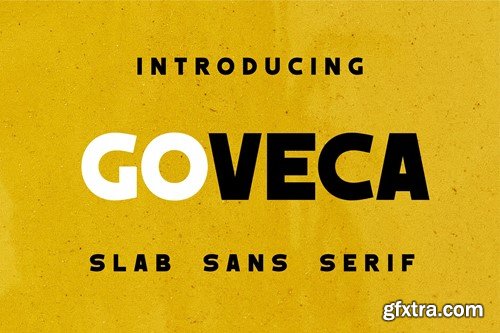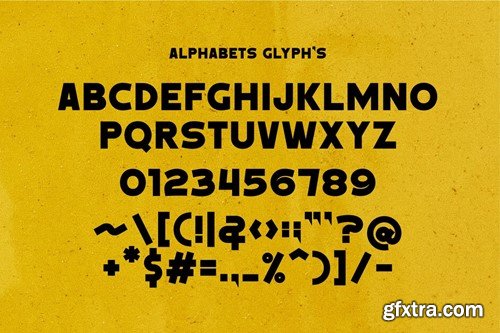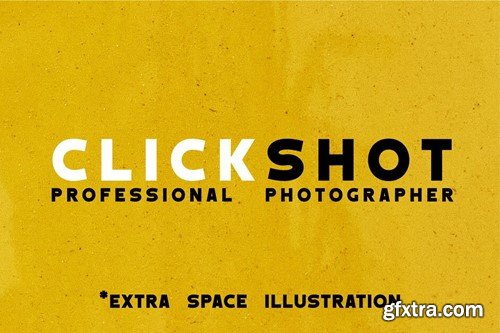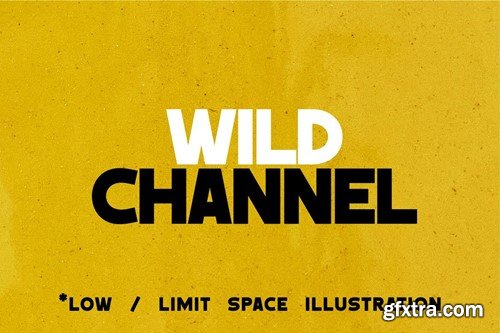
Gotva Font DBD79SR
Goveca Font
is a bold font, suitable for covers or company names. Using fairly tight spacing makes this font look stronger and has more character. Some examples are in the preview image. Font formats are available in .OTF and .TTF only. Use in some formats may require further conversion. Thank You